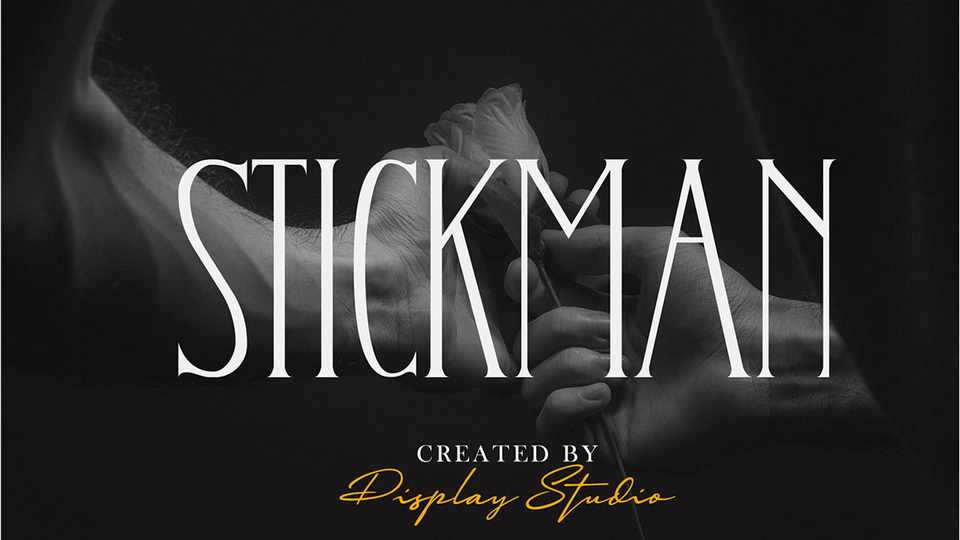
Download Stickman font, a tall and elegant display serif. Stickman font is perfect for brand logo, wedding invitations, greeting card, social media and more.
Designer: Display Studio